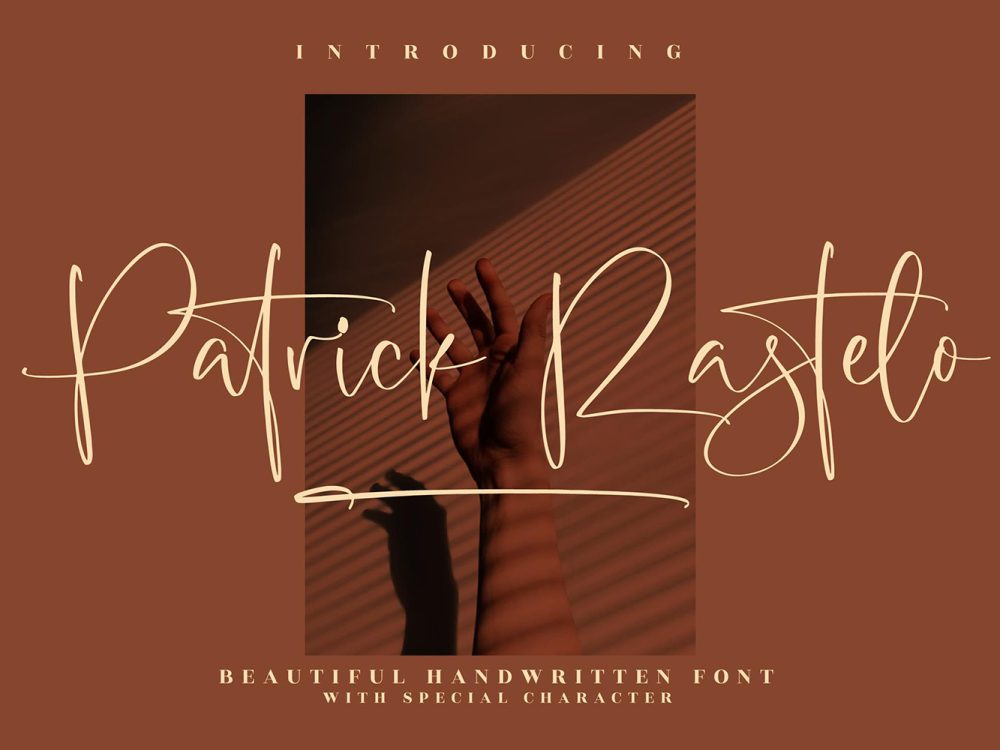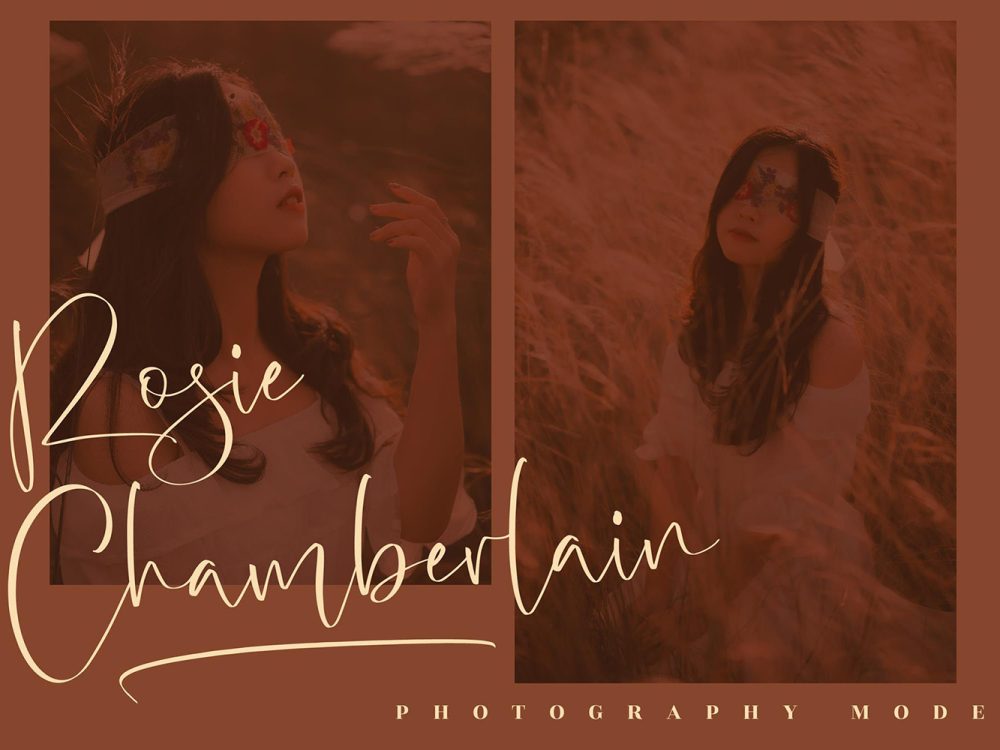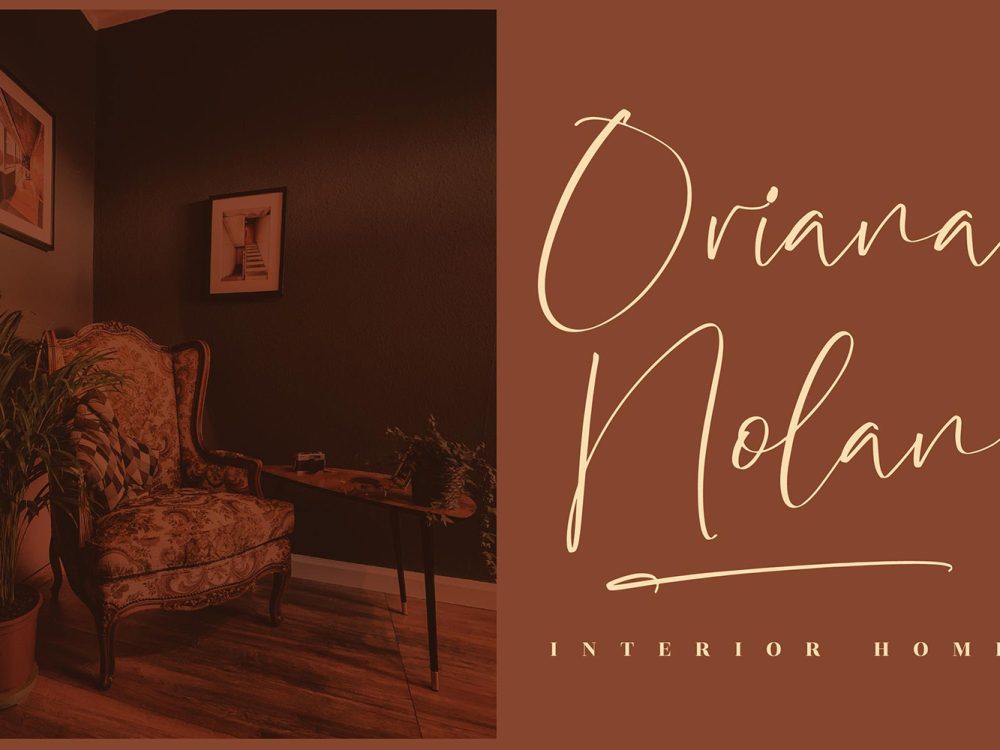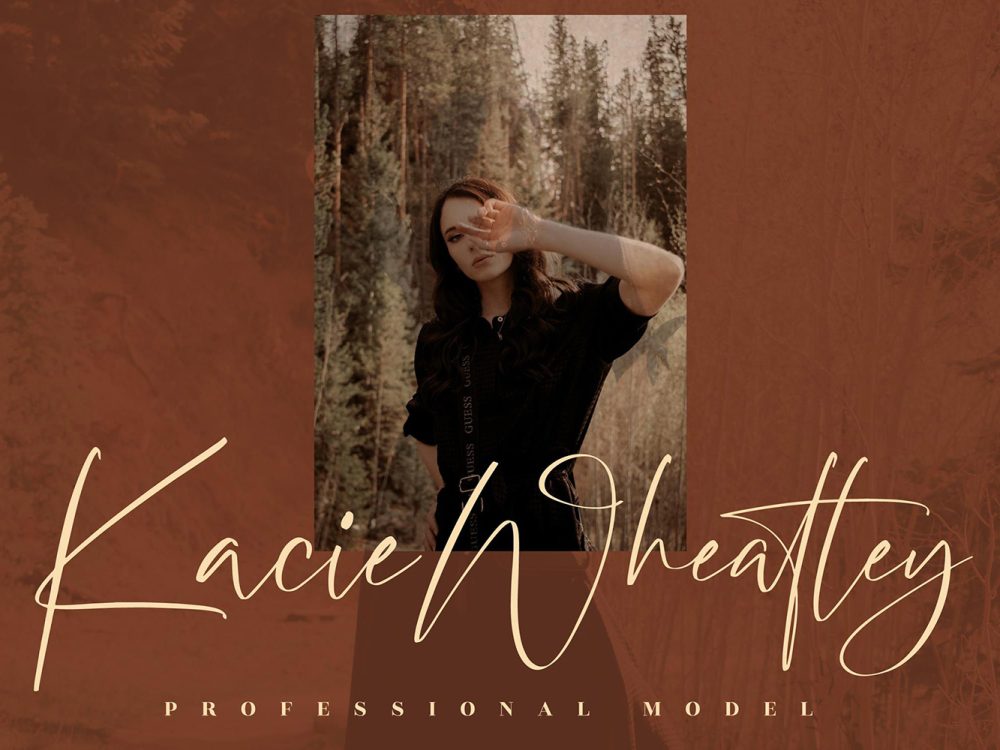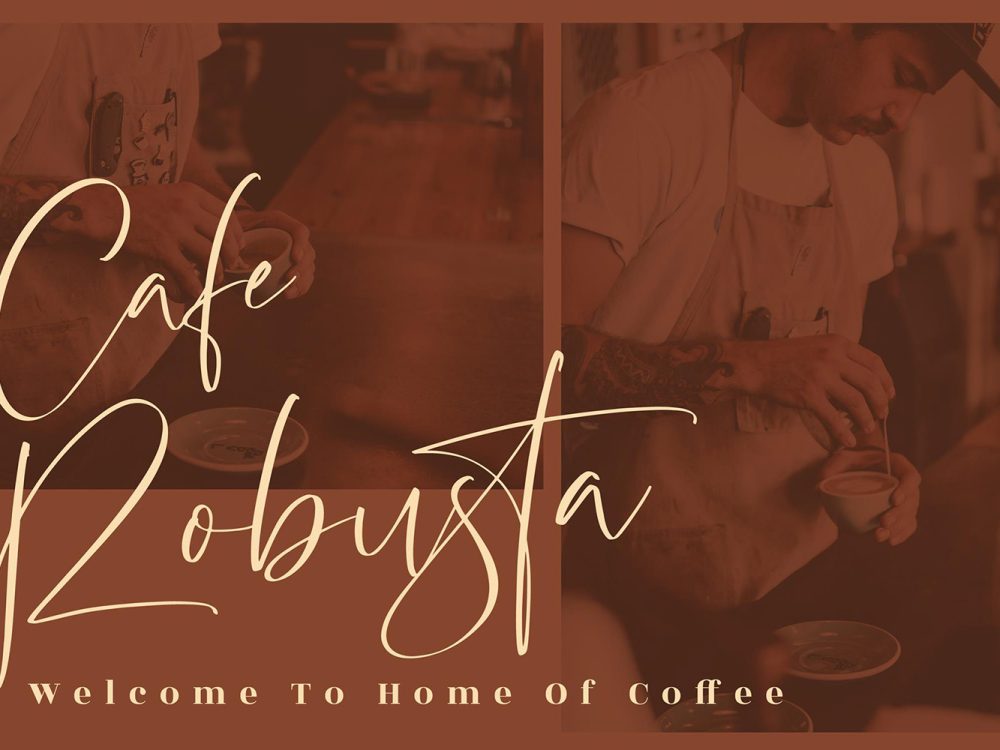
Patrick Rastelo Free Font
Experience the finesse of Patrick Rastelo Free Font, a delicate and elegant script font. Succumb to its enchanting style and utilize it to craft stunning designs. If you like it don’t forget to check out the full version.